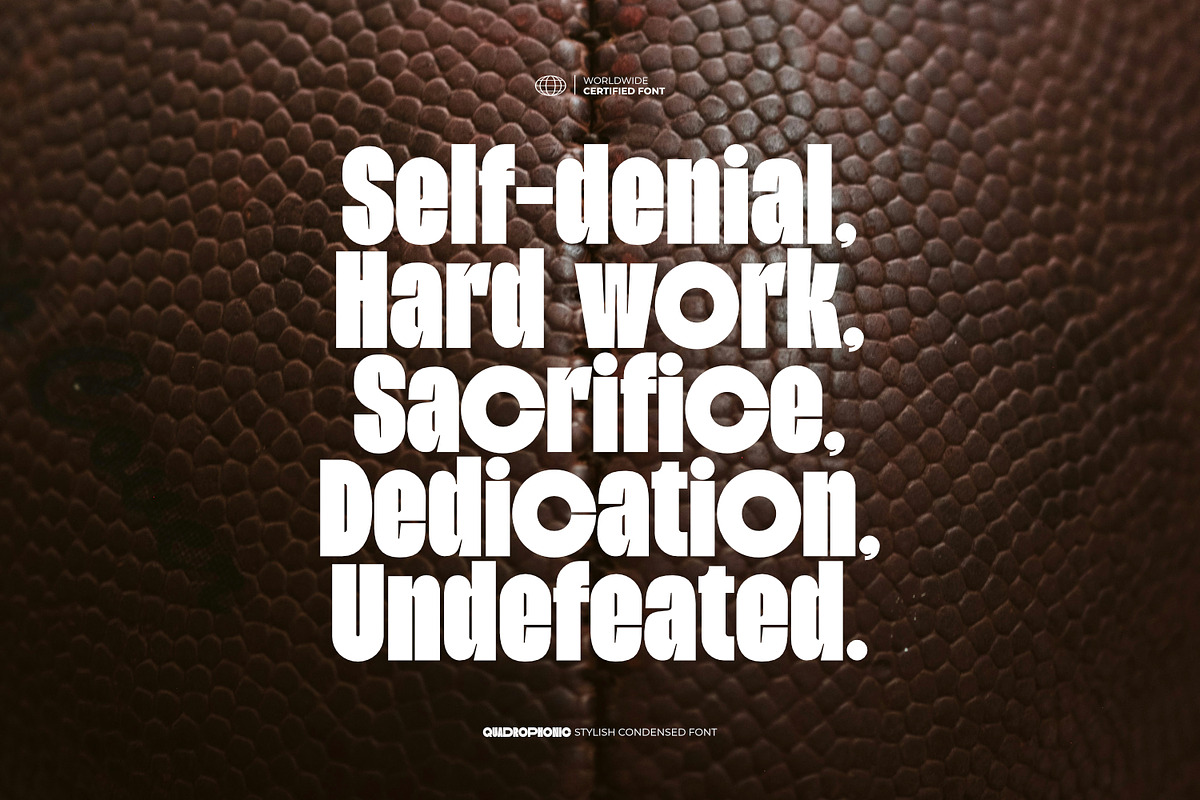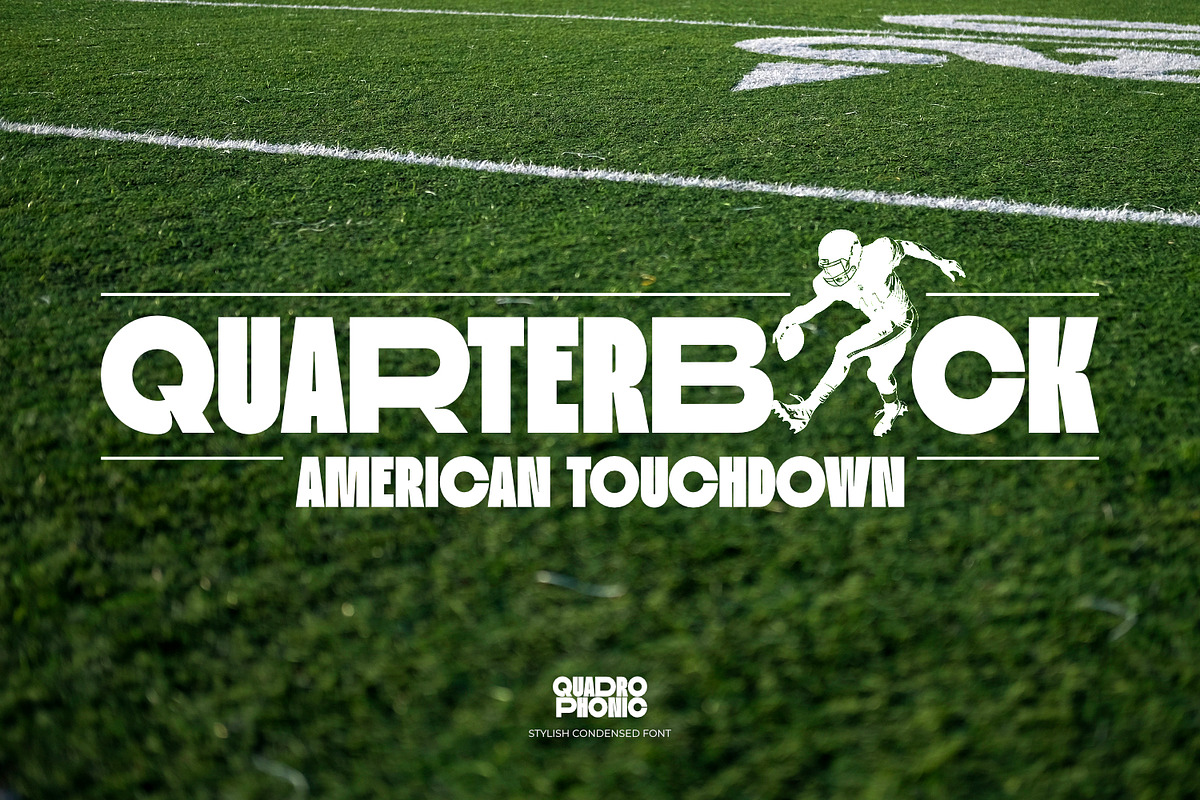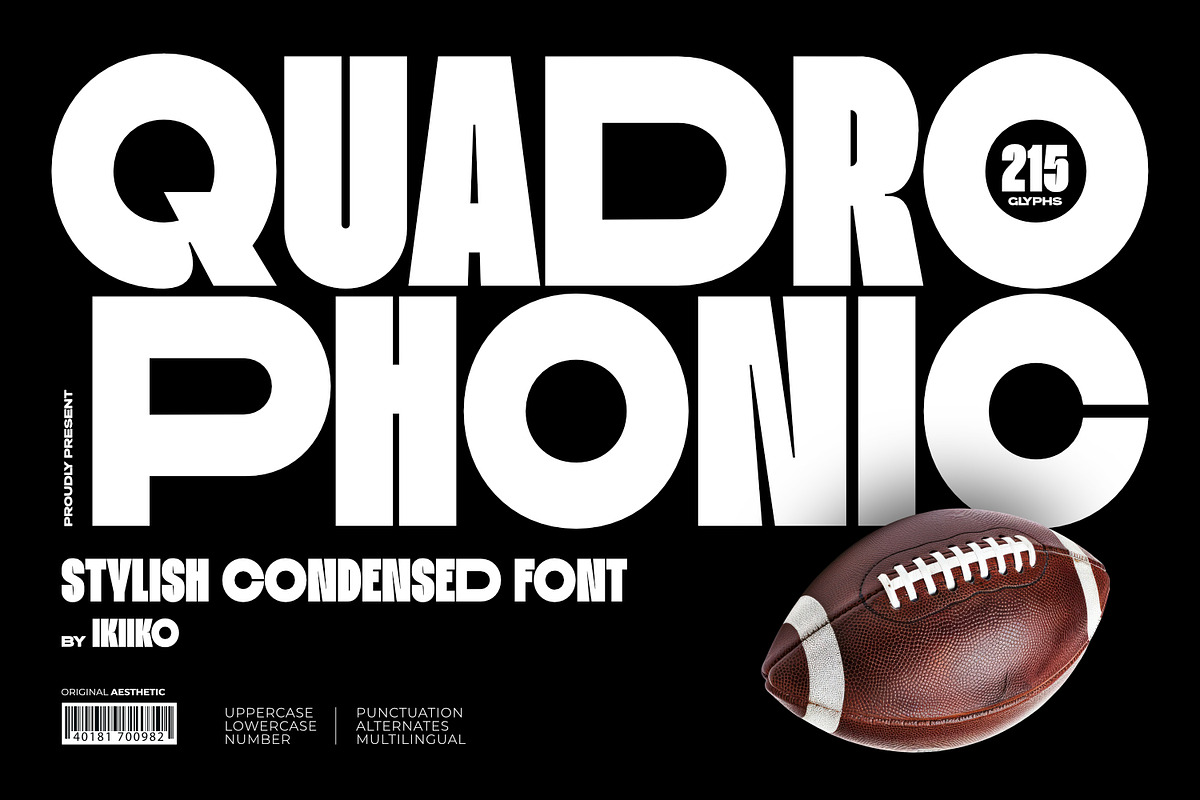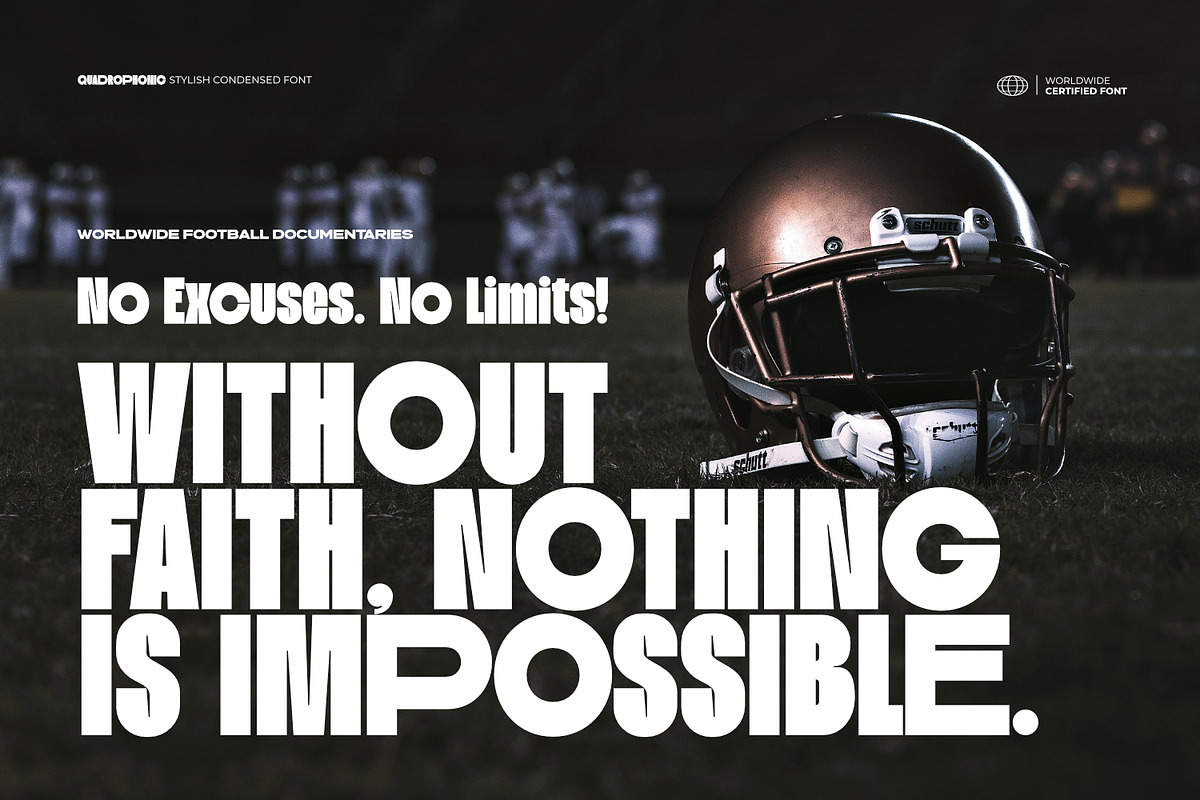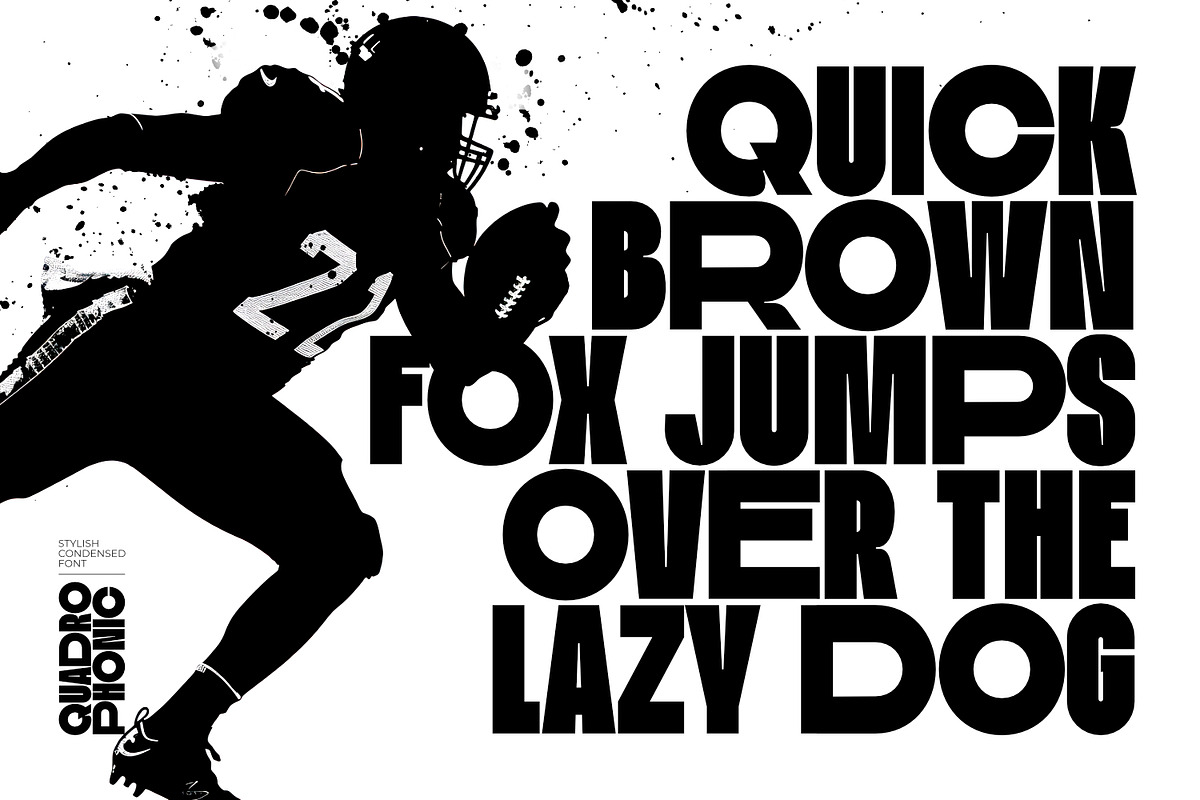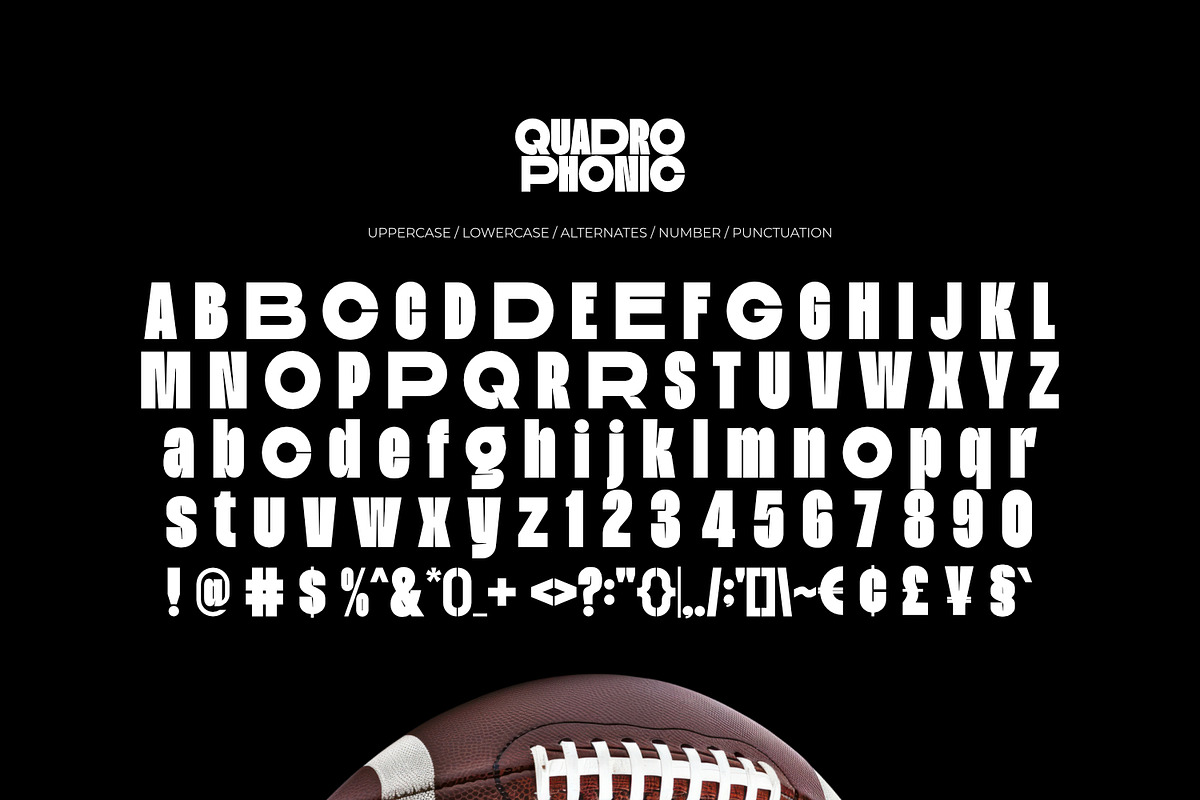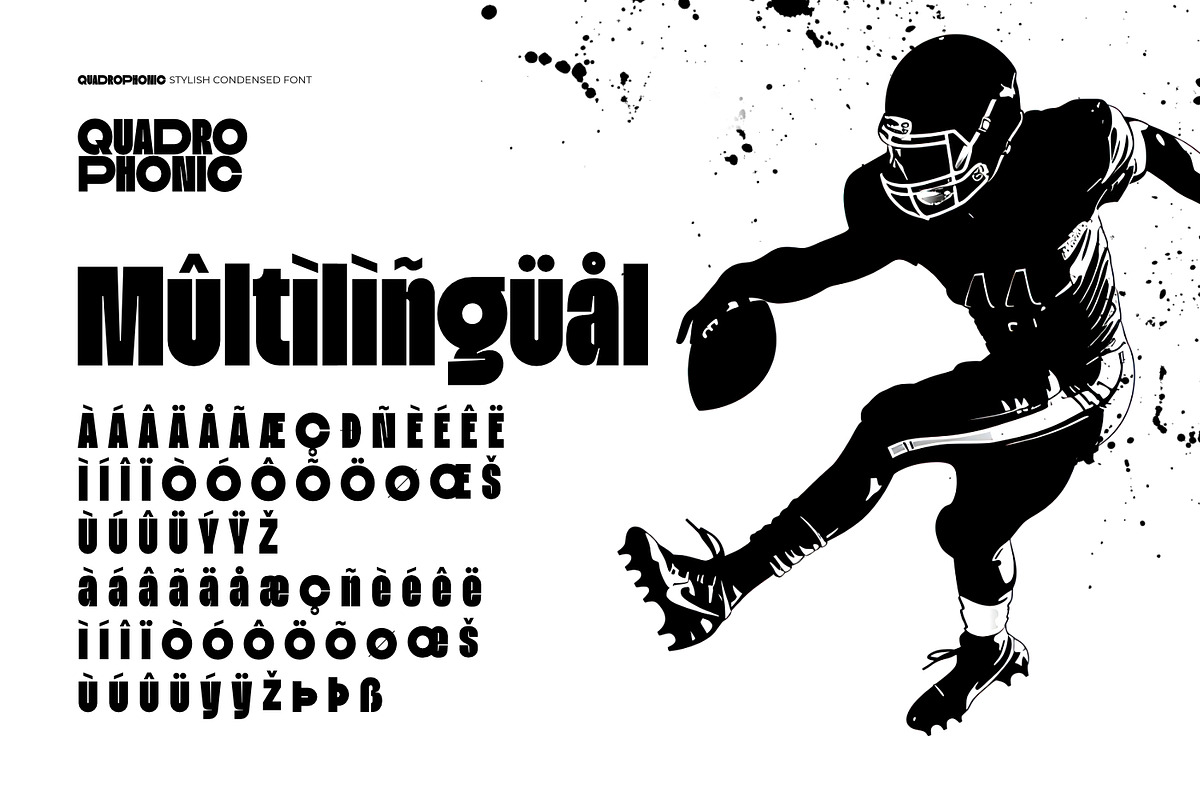
Quadrophonic Stylish Condensed Font
Proudly present Quadrophonic - Stylish Condensed Font, created by ikiiko.
Quadrophonic is a strikingly bold and stylish condensed font designed to make a statement. Its strong and commanding presence is evident in every stroke, making it ideal for projects that demand attention and confidence. With its condensed form, it maximizes space without compromising readability, allowing for efficient use in various design contexts. Whether it's headlines, titles, or branding materials, this font delivers a powerful visual impact, ensuring your message stands out with authority and flair.
This font is very suitable for making a movie poster, movie title, poster, headline, cover, magazine layout, website layout, fashion & street wear, quotes, or simply as a stylish text overlay to any background image.